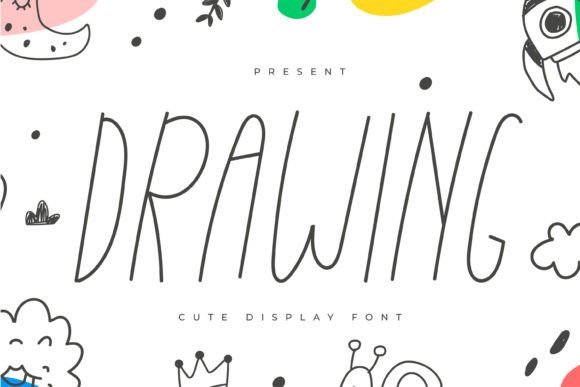
Unleash Your Creativity with Drawing Font
Who hasn’t had a moment where they’re sitting at their desk, surrounded by pencils, markers, and scraps of paper, and suddenly, an idea hits? Maybe it’s a character design for a story, a logo for a new project, or simply a doodle to brighten up a dull day. Whatever it is, it’s moments like these that remind us of the joy of creating and expressing ourselves.
That’s exactly what Drawing Font is all about – capturing the playful essence of creativity and bringing it to life in a beautiful, display font. Perfect for kids’ activities, school projects, or any design that needs a touch of whimsy, Drawing Font is the ideal choice for designers looking to add a personal touch to their work.
Whether you’re a seasoned designer or just starting out, Drawing Font offers a unique opportunity to inject some authenticity and trendiness into your projects. Its versatility and charm make it a valuable addition to any designer’s toolkit, and its ease of use means you can focus on what matters most – bringing your ideas to life.
Design Review: Drawing Font
Overall, I have mixed feelings about the Drawing Font. On one hand, it has some unique qualities that can be beneficial in certain design contexts.
• Hand-drawn feel: The font has a distinct, hand-drawn quality that can add a touch of personality to text-based designs.
• Customizability: The font comes with a range of customization options, including different weights, styles, and sizes.
• Lack of legibility: At certain sizes, the font can become difficult to read, which may limit its use in text-heavy designs.
• Over-reliance on context: The font’s hand-drawn quality can make it difficult to read in certain contexts, such as in small sizes or at a distance.
• Limited character set: The font’s character set may not include all the characters needed for certain languages or special characters.
Overall, I think the Drawing Font has potential, but it may not be the best choice for every design project. It’s worth considering its limitations and context before using it in your designs.